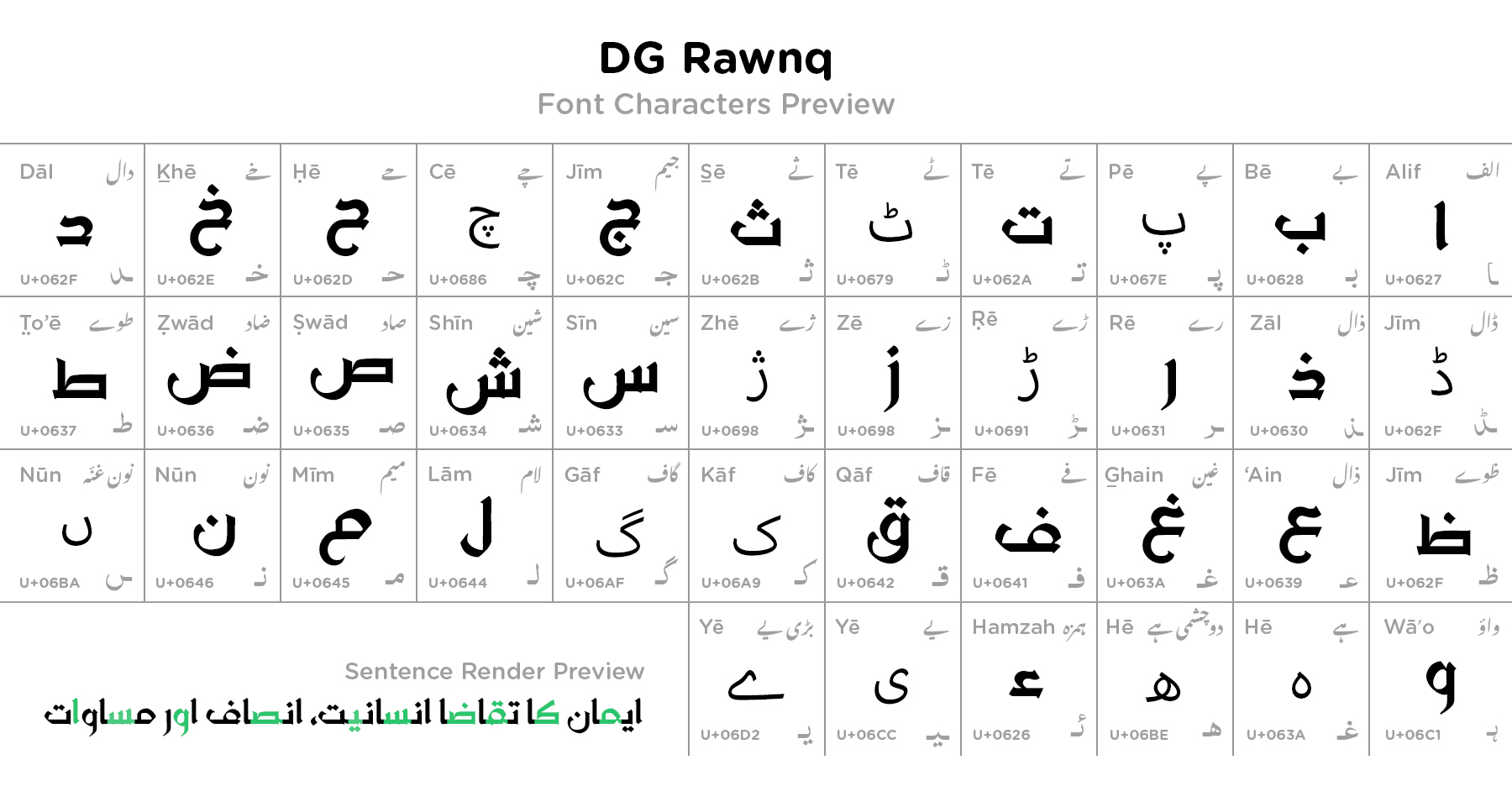
DG Rawnq is a bold, expressive, and decorative Arabic font designed by Hossam El Deen Ahmed, an Egyptian typographer. This modern font, based on the traditional Naskh script with strong influences from the Thuluth script, was released in May 2021. As it is designed with the basic purpose of designing and embellishing the text, it has a limited charset of 296 characters with a glyph count of 292. The letters have sharp angles and some straight lines, reminding us of the Thuluth script but with a more modern and stylized feel. DG Rawnq aims to glorify your creative projects with its unique and delicate style. Many letters share strokes, creating a visually entwined appearance. The strokes vary in thickness, creating a dynamic and visually interesting texture. To improve readability and clarity, the font includes diacritical marks (dots and dashes). It’s eye-catching and has a strong personality, making it suitable for headlines, invitations, logos, and branding applications where you want to make a statement. However, the complex letterforms and decorative elements might affect its readability at smaller sizes.